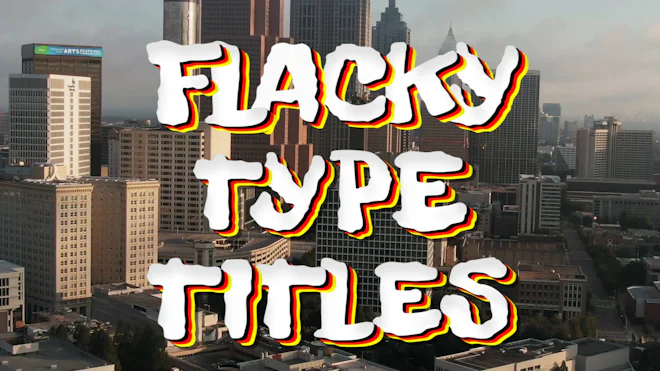
This stock motion graphics video pack includes 52 different clips of urban wiggling typefaces of letters, numbers, and symbols on a transparent alpha channel.